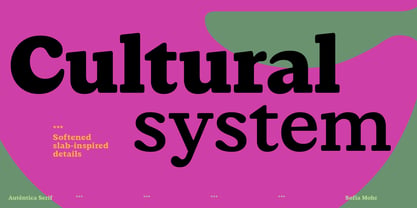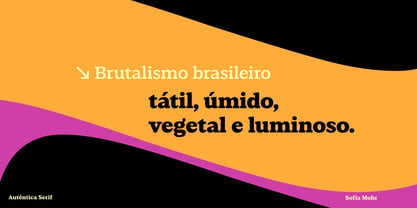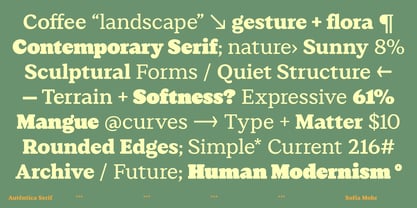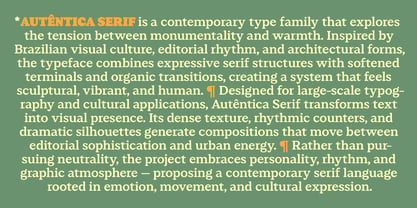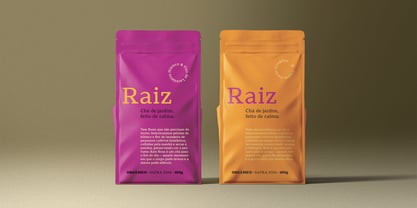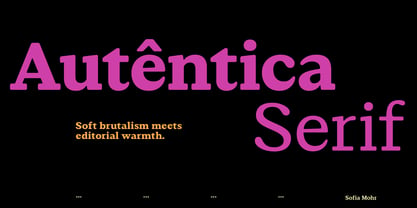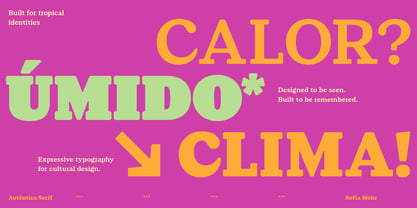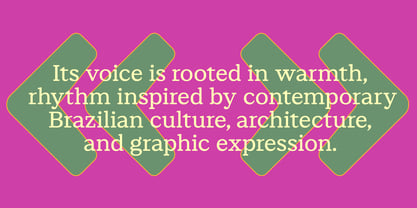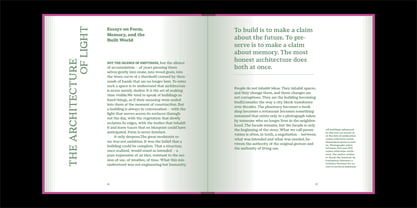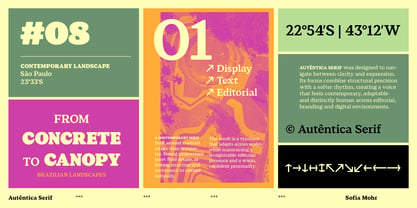
Autêntica Serif
by Sofia Mohr
Autêntica Serif is a contemporary serif typeface that transforms structure into gesture. Bold, rounded serifs, softened corners, and fluid terminals that open into subtle drop-like shapes create a voice that is warm, expressive, and unmistakably distinctive.
Rather than following the conventions of traditional serif design, Autêntica Serif embraces a more emotional approach to typography, balancing precision with movement, softness, and personality. The result is a typeface that feels contemporary while maintaining clarity, rhythm, and a strong visual presence.
Designed for branding, packaging, editorial design, and cultural projects, Autêntica Serif performs beautifully at display sizes, where its details reveal texture, contrast, and expressive character. At the same time, its balanced proportions ensure confident and versatile use across a wide range of applications.
Inspired by Brazilian Brutalism and its unique dialogue with landscape, light, and organic forms, Autêntica Serif translates architectural principles into typographic expression. Its sculptural forms balance structural strength with warmth and movement, creating a voice that feels both bold and inviting.
The family includes six weights and a variable font, offering flexibility for expressive typography and contemporary visual communication.
Following the release of Autêntica Sans, Autêntica Serif continues the evolution of the family—sharing the same design DNA while expressing it through a warmer, more organic, and distinctly serif voice.